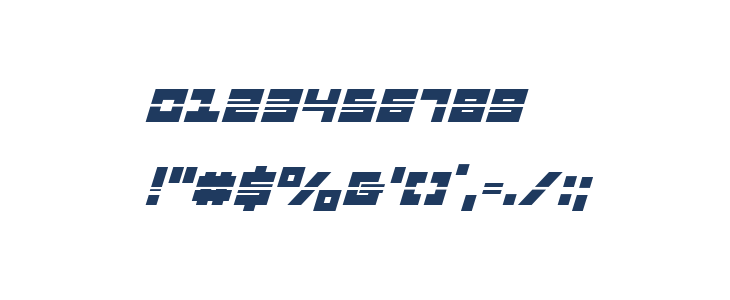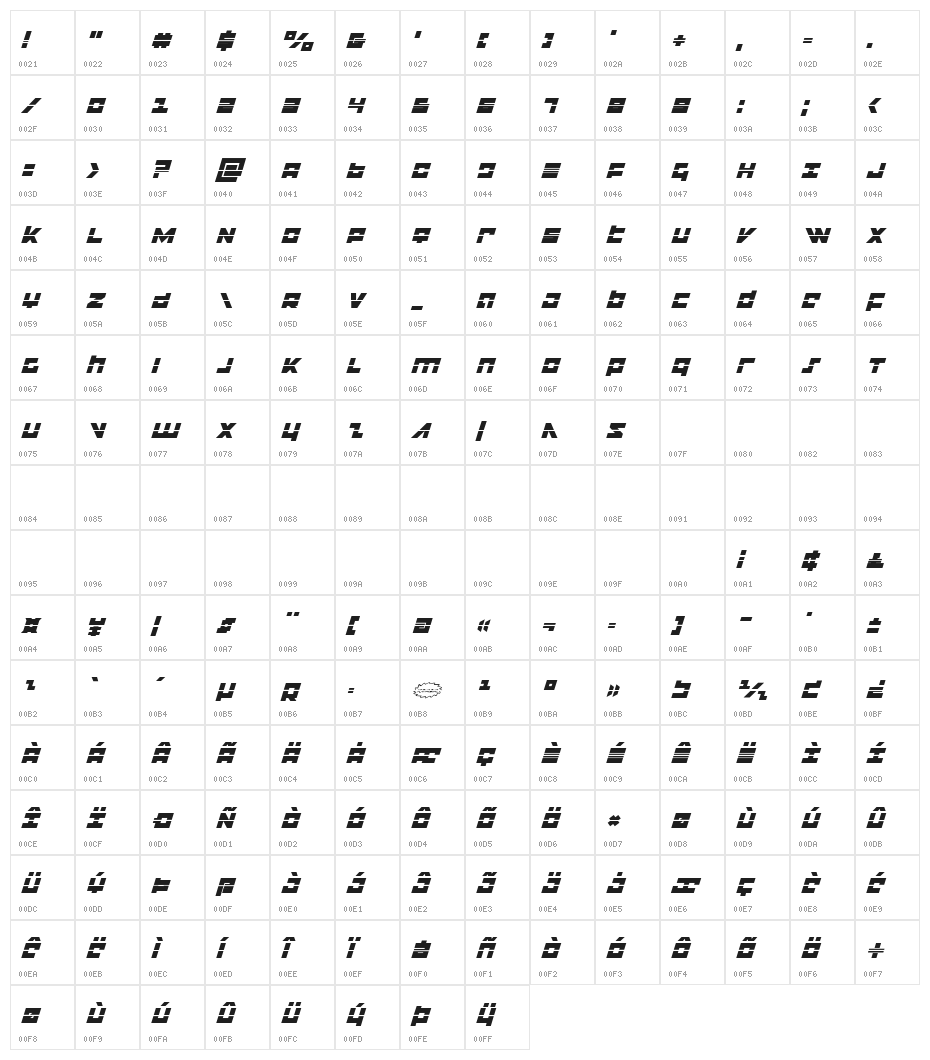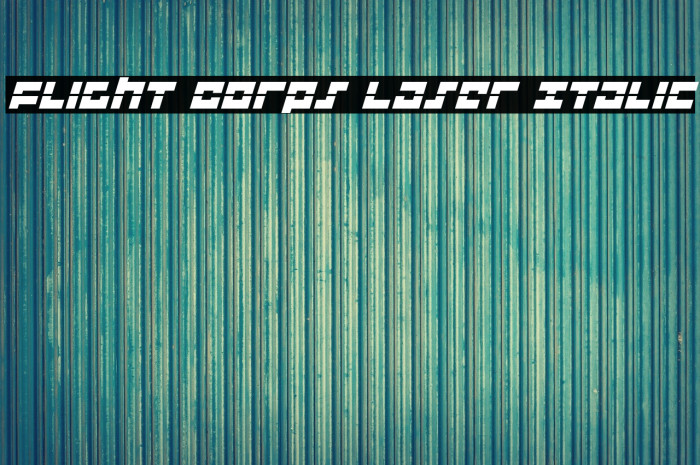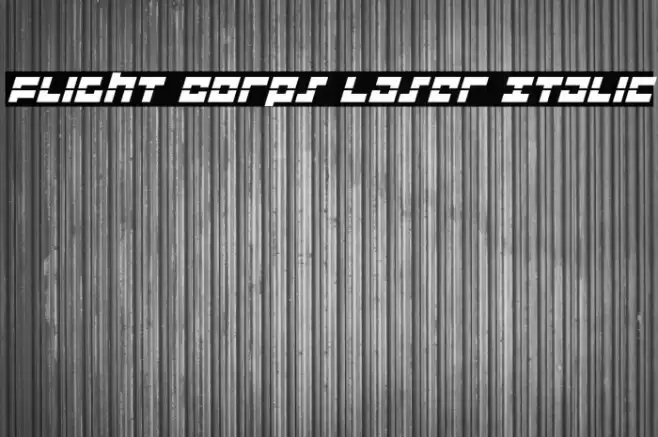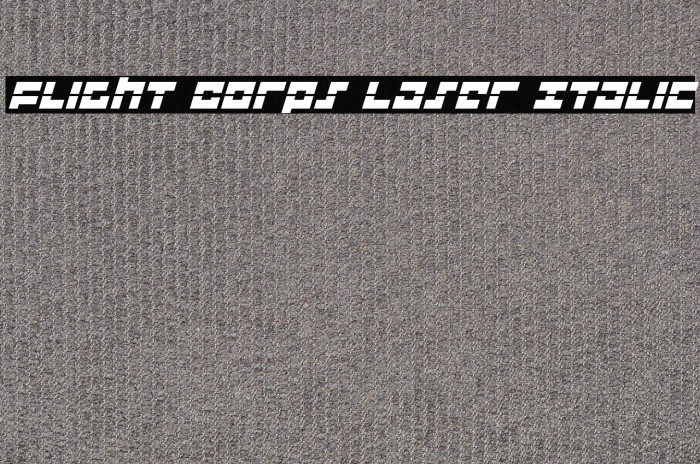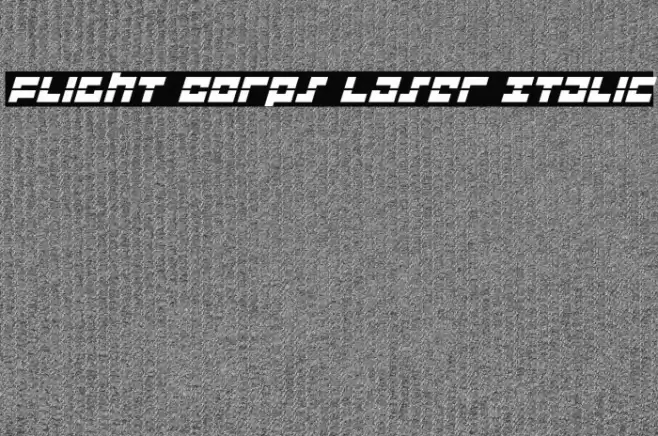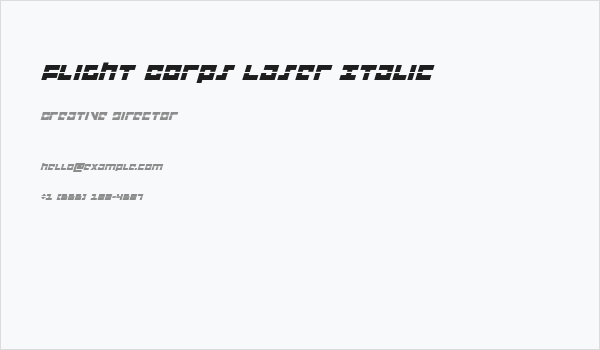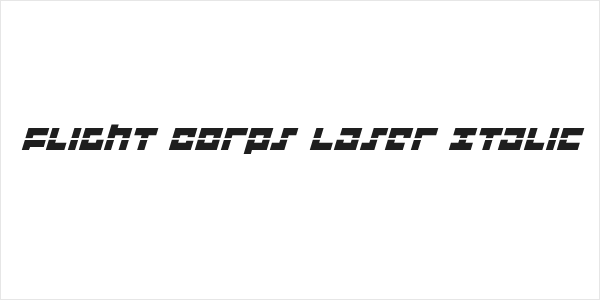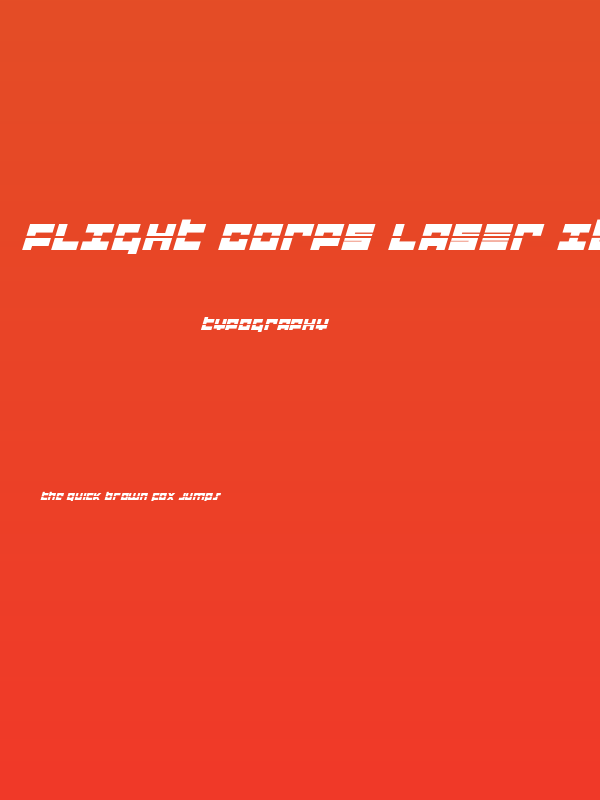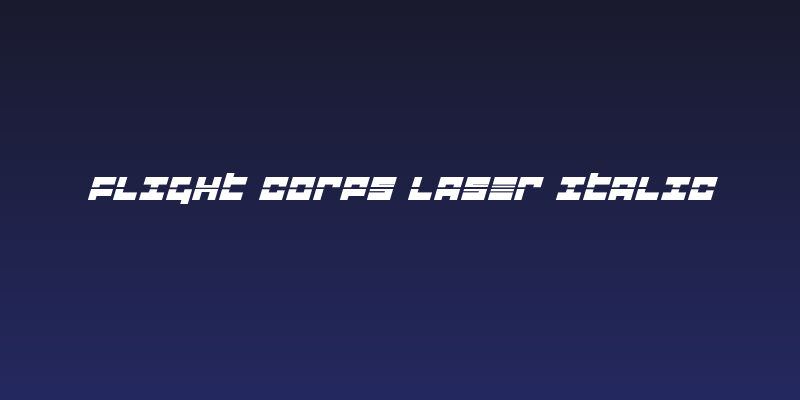
Flight Corps Laser Italic Font
Flight Corps Laser Italic Description
This font features a futuristic and bold design with a strong geometric influence. The characters are constructed with sharp angles and a distinct slant, giving it a dynamic and fast-paced appearance. The uppercase and lowercase letters maintain a consistent style, with the lowercase slightly more compact. The numerals and special characters follow the same angular and bold design, ensuring uniformity across all glyphs. The font's style is reminiscent of digital displays or sci-fi themes, making it ideal for projects that require a modern and edgy look.